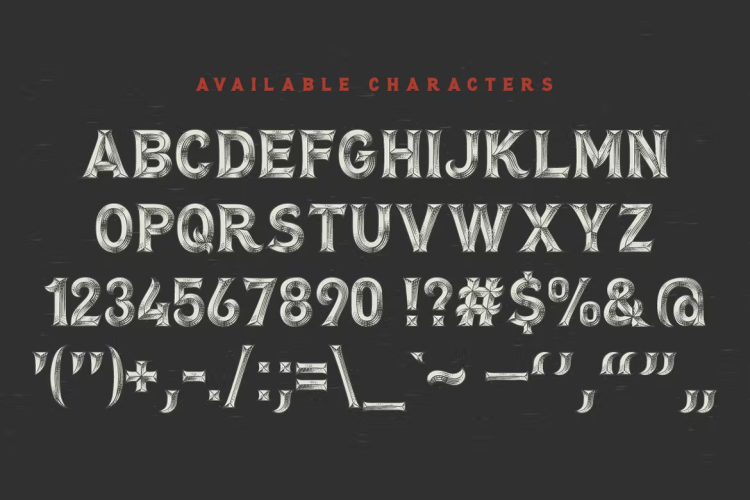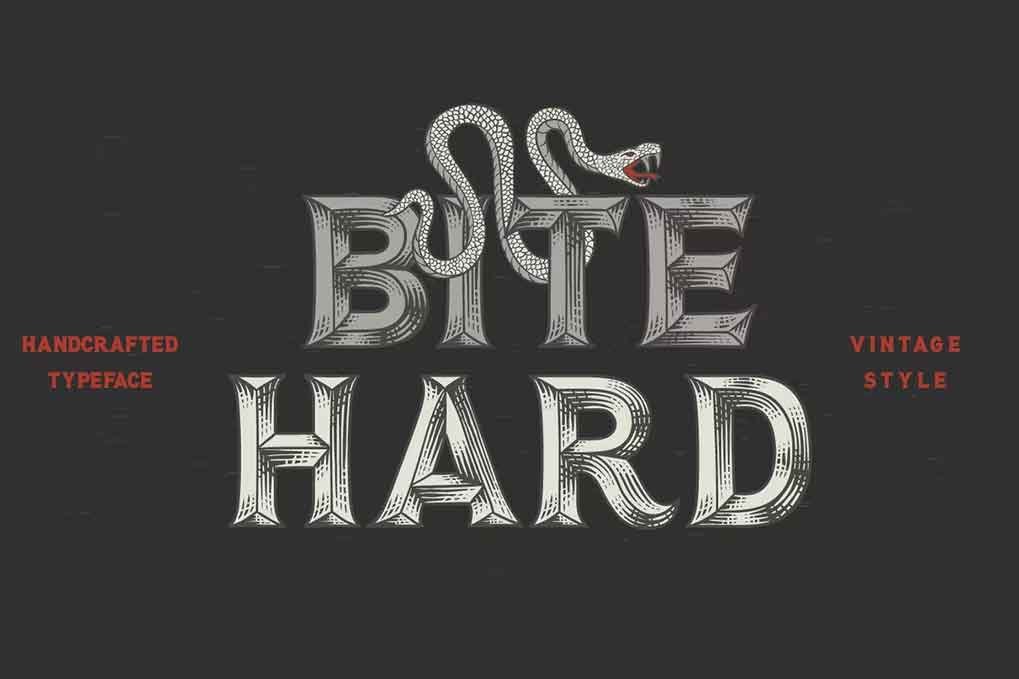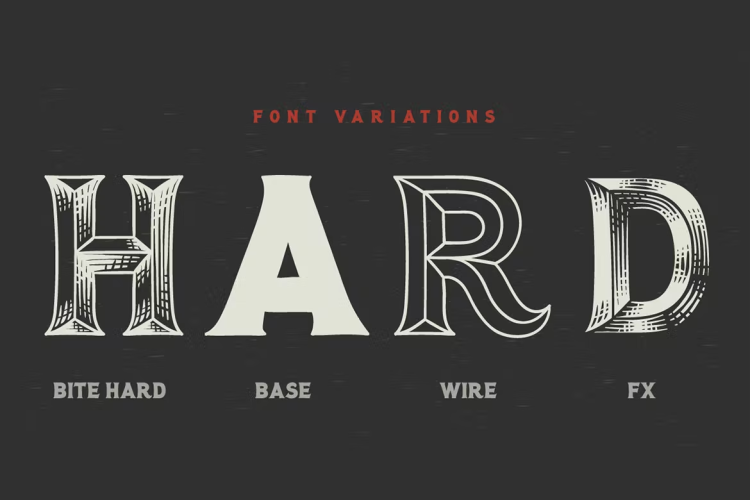
Bite Hard Font
Hi! Introducing handcrafted high detailed font BITE HARD. It has four variations to help you easy recolor and combine lettering compositions. Thank’s and have fun!
Bite Hard Font gives long-form text a classic, trustworthy rhythm — ideal for magazine spreads, annual reports and book interiors.
Pair Bite Hard Font with generous letter-spacing for wordmarks in fashion, hospitality, wine and jewellery branding.
Use Bite Hard Font for slide titles in Keynote, PowerPoint or Google Slides to add authority without looking dated.
Bite Hard Font is a Serif Fonts typeface tagged Headlines, Professional, Serif, Serif Fonts. It works well for headlines, logos, posters, social media graphics and branding projects that need a distinctive serif fonts look.